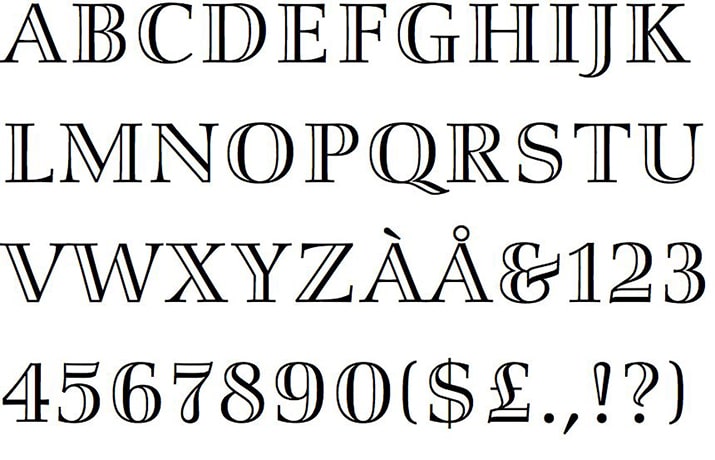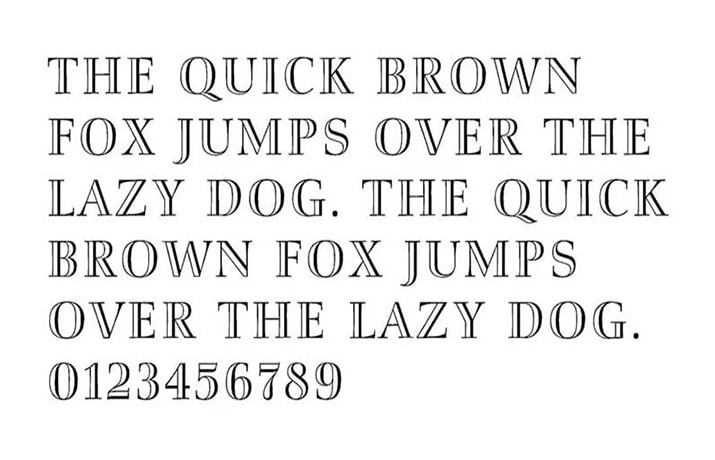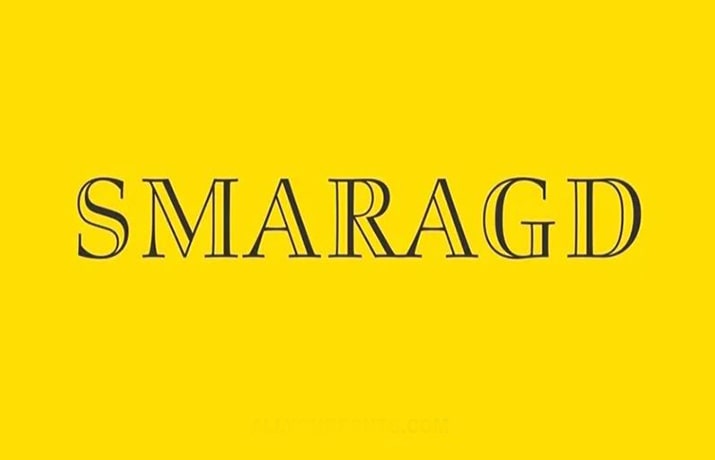
Smaragd Font is light and gracious font especially appropriate for titles and cards. Gudrun Zapf-von Hesse is credited as the designer of this font.
While the Linotype Font Foundry took charge of sharing it for the first time. After that, it got a huge boom in the market due to its uniqueness.
Whether or not that unique typeface is really worth it. If you are a designer, you will surely accept the dedication of the designer to it.
| Font Designer: | Gudrun Zapf-von Hesse |
You can use this cool font for different places. For example, creating posters, product design, creating logos, banners, headlines, book covers, and many other similar things.
On the other hand, the best use of this sexist font is in special event card printing. Like birthday cards, invitation cards, and wedding cards. Hence, it has the potential to add a unique touch to all types of designs.